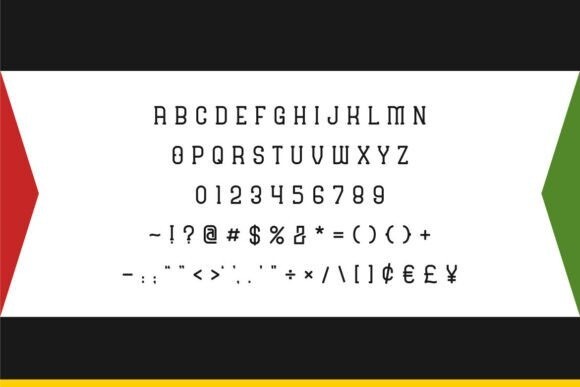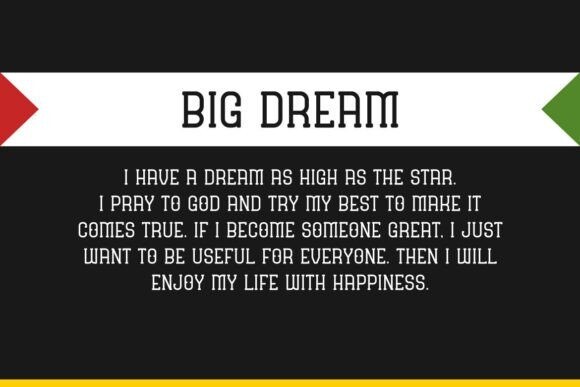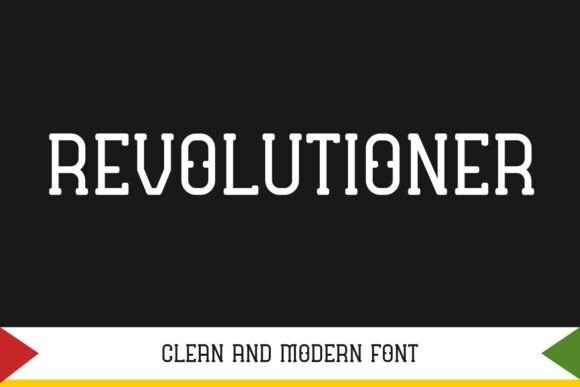
Revolutioner Font
Revolutioner Font is a clean and modern font. Revolutioner can be used in any work such as comic books, posters, schools, flyers, book titles, advertisements, social media content, logos, and many more.